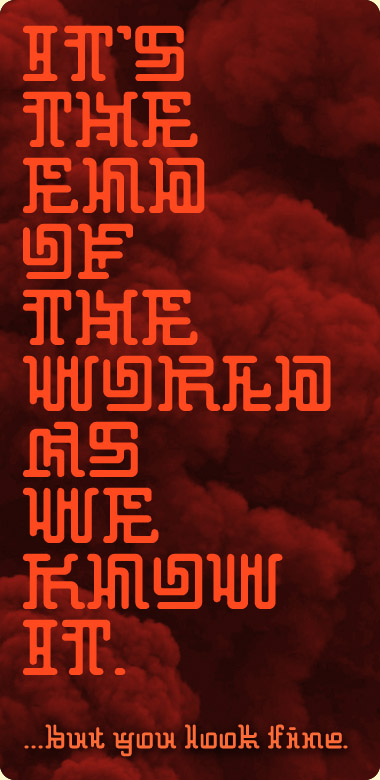
Apocalipsis
A Fontstruct for the End Times.
I like it! My 10 2 U
We need the UC & numbers & all the other glyphs, pleaseeeee
Awesome!
Great! Agree with elmo, please make UC. Other than that, AMAZING work. 10/10
Fantastic. More glyphs please. There are a few minutes left.
I like the letter shapes.
Thanks for all the early feedback everyone! The caps are a work in progress. If the world doesn't actually end, I'll get right back on them soon.
What a vision!
10/10!
The lower case characters are pretty impressive. I can't wait to see the capitals and the numbers. 10/10
Curvy — great. Love that a. 10/10.
INCREDIBLE! This must have been pretty much brain teasing to complete it ! I'm in awe.
I remember a joke about apocalipsis, which says that it was we, kazakhs, who invented this word. "Apa kelipsiz", which sounds like apocalipsis, means: "Oh, grandmother, you've come!" in kazakh :)
Anyway, an incredible result!
10/10!
Superb font!
...And I liiiiiiiike the sample!
Great font and fine sample - bet that REM track got played a lot recently :) 10/10
Do you know this other apocalyptic (maybe a bit more alien) incredible font from Qimplef ? Drysfa gwallgof
Thanks for the comments everyone!
@architaraz… thanks for relating that reference! Especially funny/fitting if you had met my grandmother.
@Abneurone… Thanks, and I wasn't familiar with that other FS… but, it's great to see another variation on a similar idea, and the fearlessness in regard to "legibility"… something I know you know all about! I was really trying to strike a balance here between "that's cool" and "screw it, I can't read a damn thing."
My poor grammy is dead, but i'm glad u finshed the caps :)
Surprisingly legible.
@fugitiveglue : i know most people don't think so but this "balance" between legibility and innovative shapes is crucial in my work and that explained why most of my fonts needed so much time, work, and redesigning phases to find their way.
By the way, you wrote recently that you have made a career in typography... Have you a "vector software" activity ? Is it visible on the Net ?
This "doomsday" font really pleasing my eye!
Unusual, consistent, strong! 10/10 + fav
Amazing and full of interest! A revelation! ;) 10/10
Congrats!